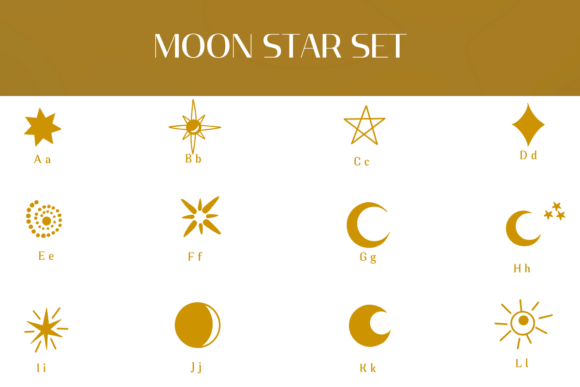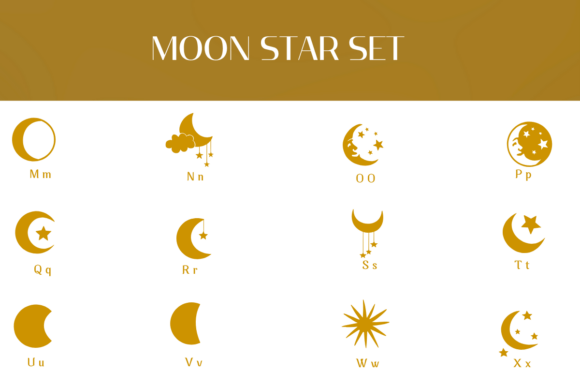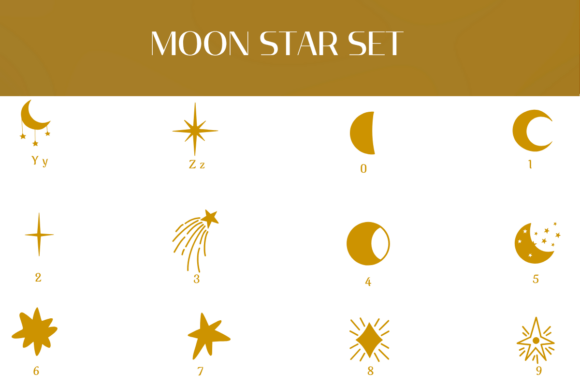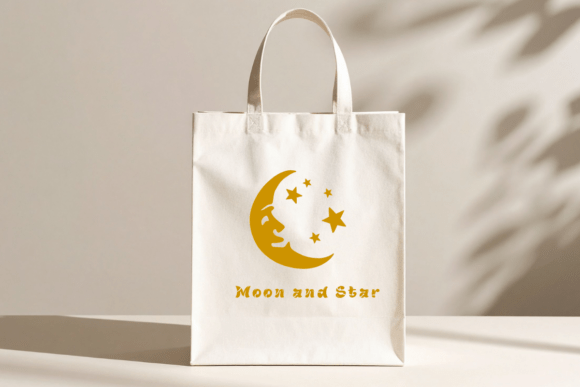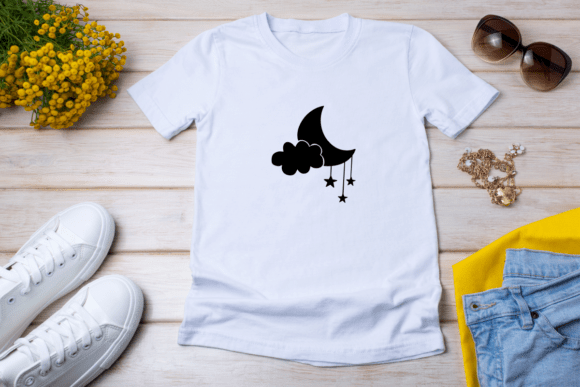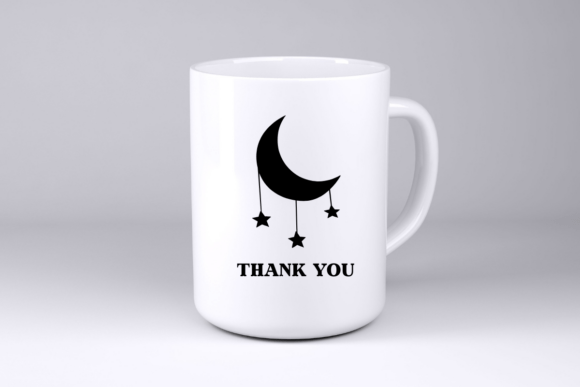
Introduction to Moon Star Set Font Font
Fonts play a crucial role in design, and the Moon Star Set Font font is a typeface that brings both character and versatility to any project. Whether you’re working on a branding project, a website, or a print design, the Moon Star Set Font font offers a unique style that can elevate your work.
Bring a touch of celestial charm to your designs with the Moon Star Set Dingbats Font.
This decorative dingbat collection features an enchanting mix of moons, stars, suns, and cosmic symbolsβall crafted in a clean, modern silhouette style Perfect for magical branding, dreamy invitations, or space-themed artwork, this font is your go-to for adding stellar personality without the need for illustrations.
Key Features of Moon Star Set Font Font
Why Choose Moon Star Set Font Font?
The Moon Star Set Font font is more than just a typeface β it’s a design tool that helps you communicate your message with style and clarity. Its unique character set and versatile design make it suitable for a wide range of applications, from elegant invitations to bold headlines.
With its carefully crafted letterforms and balanced proportions, the Moon Star Set Font font ensures readability and visual appeal across all mediums.
What makes Moon Star Set Font font special?
The Moon Star Set Font font stands out with its unique design, exceptional readability, and versatility across various design applications.